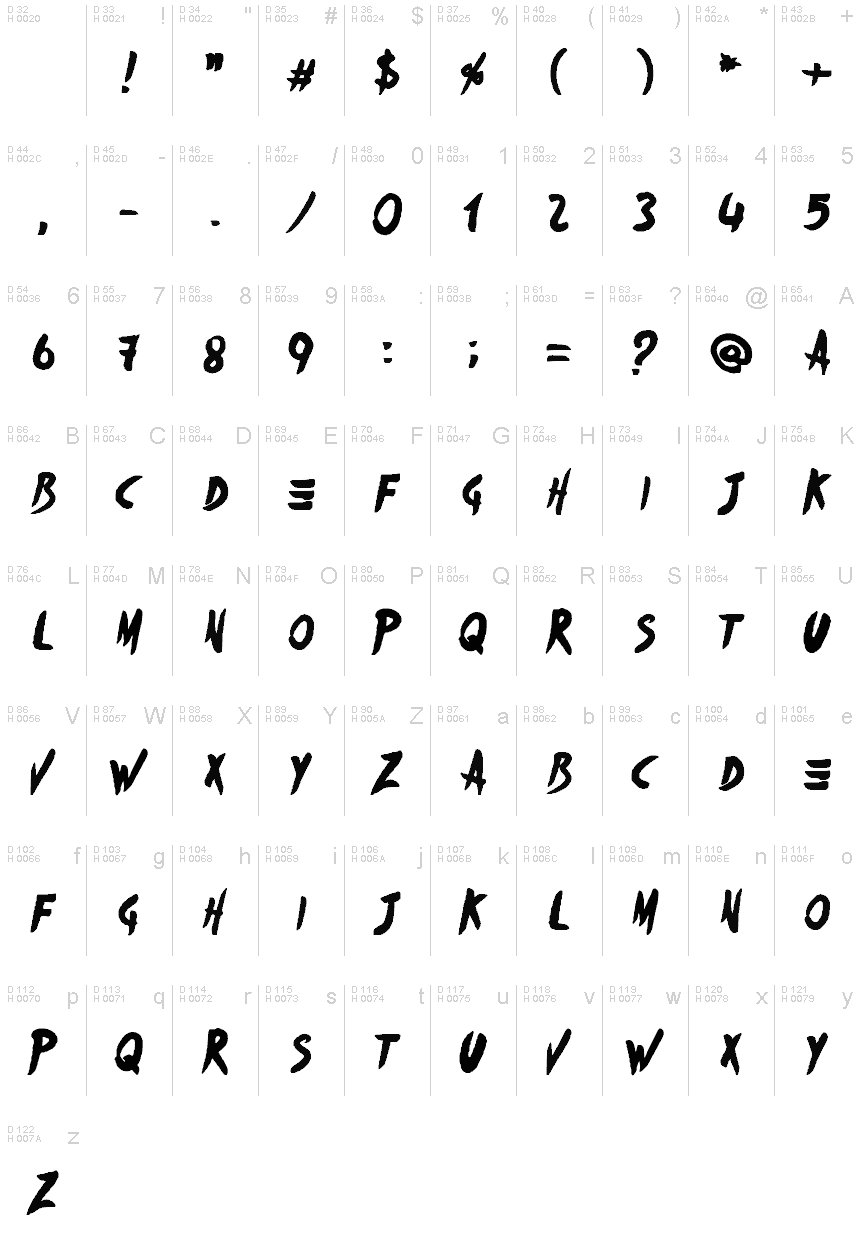
Night_Ride
Night Ride is a captivating, brush-style font that exudes a retro, nostalgic charm. Its dynamic, fluid strokes and organic aesthetic evoke a sense of movement and energy, making it an ideal choice for a variety of design applications. From vintage-inspired branding to eye-catching headlines, Night Ride's bold, expressive nature lends itself to both modern and timeless design aesthetics.
Crafted by designer Jarek Frac, this free-for-personal-use font offers a unique typographic solution for those seeking to infuse their projects with a touch of vintage flair. Its versatility allows it to seamlessly integrate into a wide range of design contexts, from editorial layouts to packaging designs, where its distinct character can help elevate the overall visual identity.